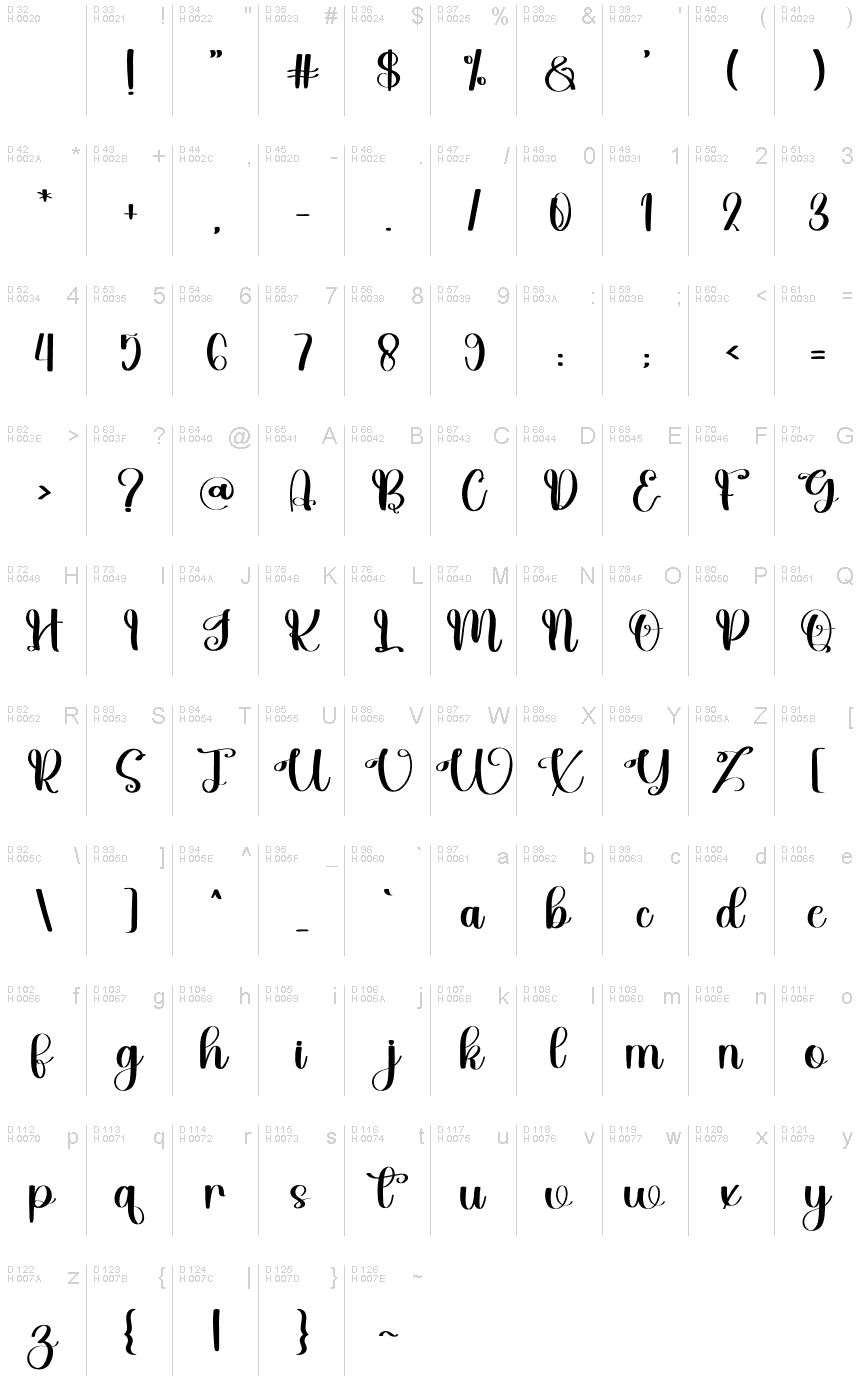
Happy Birthday
Happy Birthday, a calligraphic masterpiece by Inermedia Studio, encapsulates the joy and elegance of special occasions. With its flowing lines and graceful swashes, this font exudes a sense of celebration and sophistication. The carefully crafted letters in the Happy Birthday font offer an aesthetic charm that is both visually striking and emotionally resonant.
The fluidity of this typeface makes it an excellent choice for invitations, greeting cards, and personal messages that require a touch of intimacy and finesse. Its legible yet artistic strokes ensure that each application retains readability while adding an artistic flair.
Whether used in digital designs or printed media, Happy Birthday stands out due to its balance between decorative elements and classic calligraphy. It is well-suited for various creative endeavors where a personal, hand-drawn feeling is desired—making it not just a font but an experience that adds warmth and personalized elegance to any project it graces.